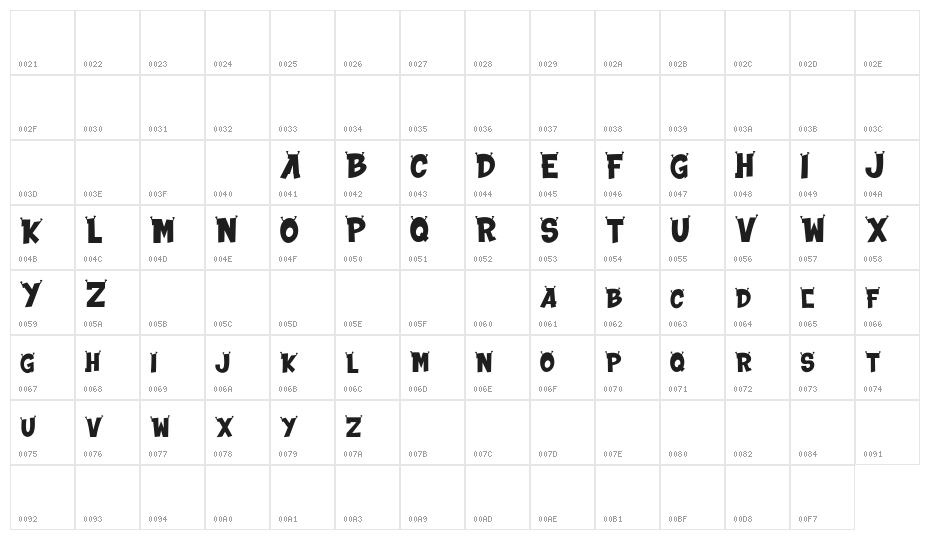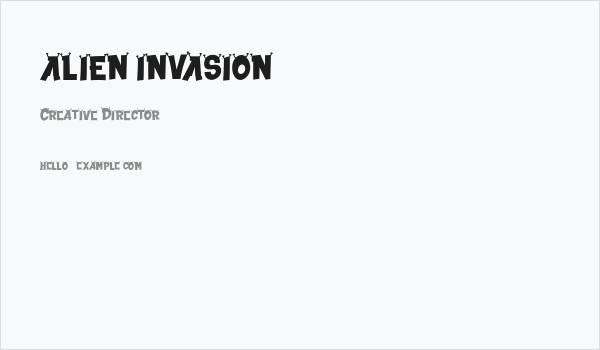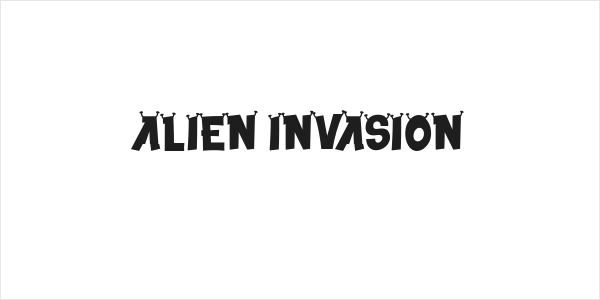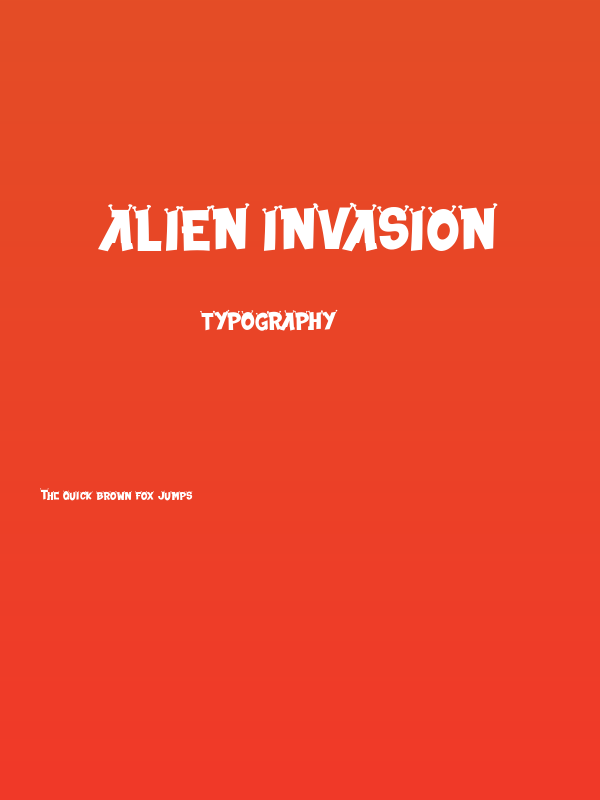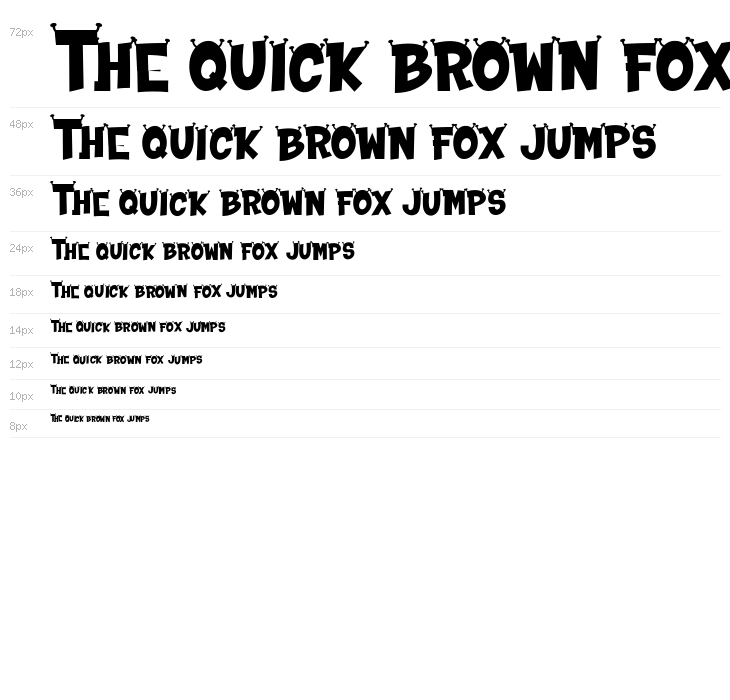
ALIEN INVASION Font
ALIEN INVASION Description
This playful and quirky font features bold, cartoonish letters with a unique alien-inspired design. Each character is adorned with small antenna-like protrusions, giving it a whimsical and extraterrestrial feel. The letters are bold and slightly irregular, adding to the fun and informal style. The font is perfect for projects that require a touch of humor and creativity, such as children's books, comic strips, or themed party invitations. Its distinct style makes it stand out, ensuring that any text using this font will capture attention and convey a sense of fun and imagination.
| Overall Style | Playful, Quirky, Extraterrestrial |
| Proposed Projects | Ideal for children's books, comics, themed party invitations, and playful branding. |